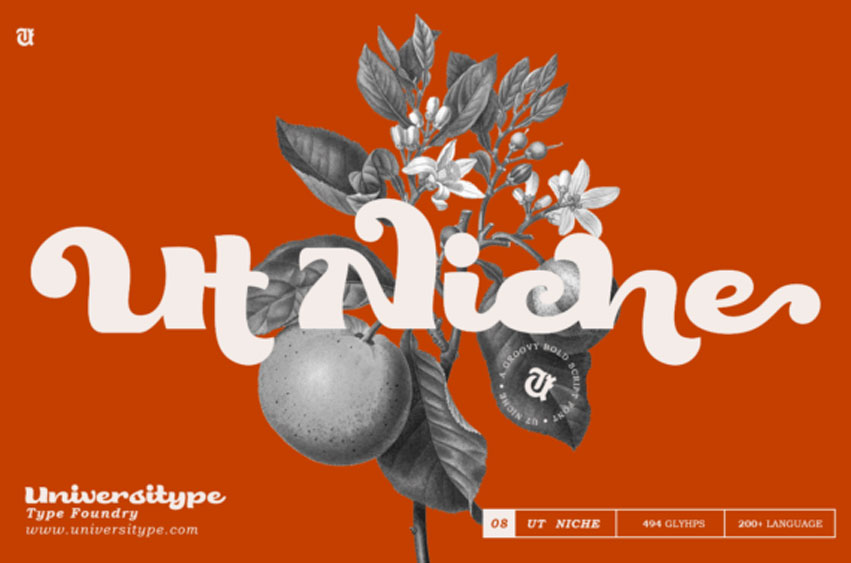
Ut Niche Font Immerse yourself in the charming realm of UT Niche, a fusion of antiquated allure and modern refinement showcased beautifully in this daring yet playful script. UT Niche, heavily influenced by design elements of the mid-century, introduces an air of bygone elegance to any project, effortlessly marrying dynamic curves and sprightly embellishments with contemporary style. Ideal for designing logos, crafting characterful advertising or enhancing a brand’s visuals, this typeface encourages audacious creativity and light-hearted exploration.
With its impressive repertoire of 501 glyphs, which includes a range of chic alternates and ligatures, UT Niche is a veritable playground of limitless creative possibilities. Its audacious strokes and swashes instill each letter with distinctive personality, allowing every word to radiate warmth and genuine character.
The gentle, rounded edges invoke fond memories of vintage greeting cards and age-old advertisements, while the neat, modern lines ensure that it remains relevant in the digital era.
Key features include an exhaustive Glyph Collection of over 490 distinctive glyphs, a unique blend of Old-world Appeal and Modern Flair, striking Swirls and Embellishments, and superior adaptability across multiple formats such as OTF, TTF, and WOFF, making it compatible across diverse software platforms.
The font also caters to an international audience with its multilingual support, making it a top choice for global brands. UT Niche emanates an energy that’s full of life and mirth, embodying a unique dynamism perfect for creative endeavors. With the quaint allure of retro-inspired aesthetics underpinning it, UT Niche skillfully invokes nostalgia while maintaining relevance in the present-day design sphere. Its bold, decorative flourishes are eye-catching and engaging, making it perfect for headline-grabbing designs.
Whether applied to branding for a new-age start-up or merchandise for a retro-themed event, UT Niche seamlessly fits into any design that calls for timeless beauty that never goes out of style. Ideal for projects that balance artistic sophistication with whimsical energy, UT Niche is perfect for print and digital mediums alike, from crafting packaging for vintage-inspired products to designing eye-catching lifestyle brand campaigns.